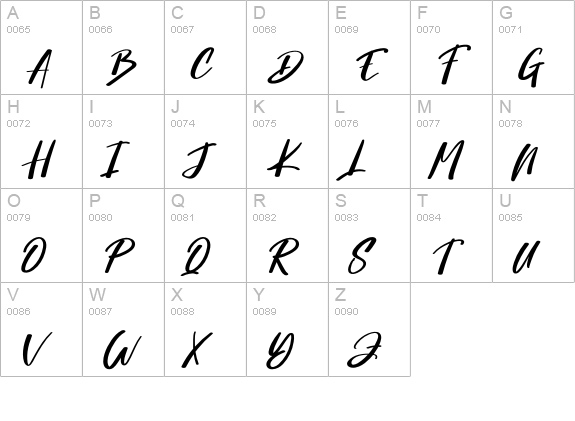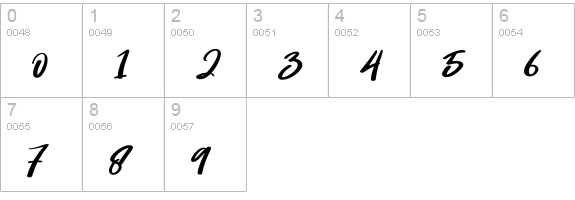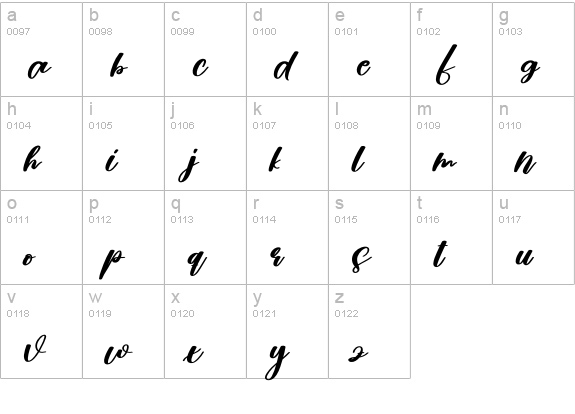
Beach Font Details
Beach is a free for personal use font in the Script > Handwritten category, designed by scratchones. It has been downloaded 78 times and is available for Windows, Mac and Linux.
Introducing Beach font, a stunning typeface that captures the essence of a leisurely day by the seaside. With its playful curves and elegant lines, Beach font is the perfect choice for projects that require a touch of summer vibes and relaxation. This versatile font can be used for a wide range of design purposes, from branding to social media graphics.